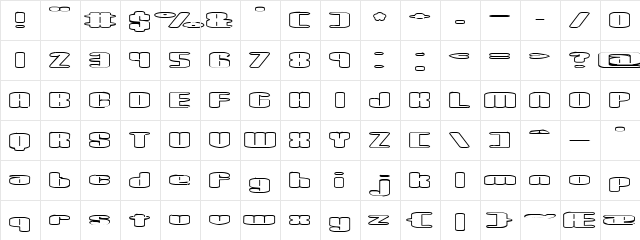
Spacious Outline (BRK) Regular
Design Context for Spacious Outline (BRK) Typeface
Spacious Outline (BRK) brings ornamental detail and strong personality to headlines and identities, where visual impact matters more than quiet functionality.
Font Pairing: Pair with a clean neutral sans-serif for body copy to let Spacious Outline (BRK)'s character lead without overwhelming the composition.
Pro Tip: Use Spacious Outline (BRK) exclusively at display sizes — it was designed to be seen, not read at length. Let a neutral companion handle body copy.